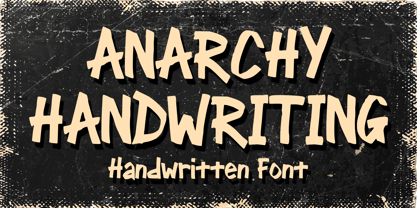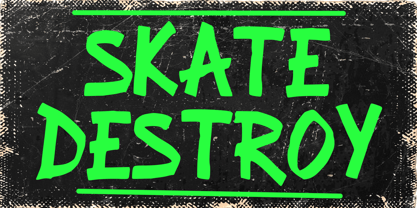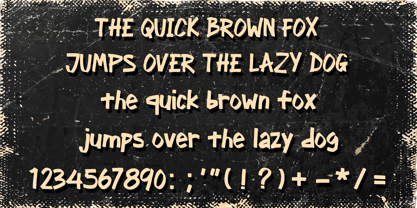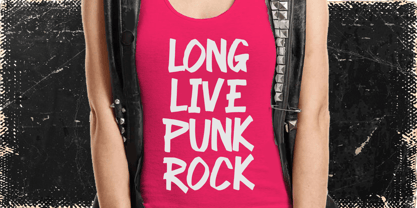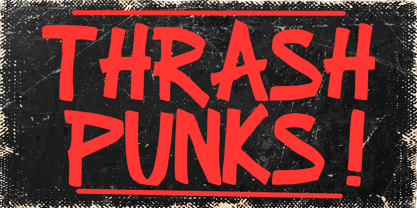
Anarchy Handwriting
by Mvmet
The Anarchy Handwriting Font Family was designed by Gabriel Valentinus and published by Mvmet. Anarchy Handwriting contains 1 styles.
Brushed with punk influence and seasoned with skateboarding grit, Anarchy Handwriting is more than just a typeface. It's a bold and vibrant display font, born from the pulsating energy of punk rock and the street-style of the skateboarding world. Proclaiming a cool defiance, Anarchy Handwriting stands out as a bold stroke of creativity, making it perfect for creating impactful movie posters, dynamic music covers, rebellious t-shirt designs, eye-catching stickers, stunning clothing visuals, appealing merchandise and more. Emanating a distinctive style that's both edgy and delightful, Anarchy Handwriting will inject your designs with an unforgettable charm and spirit of audacious anarchy!